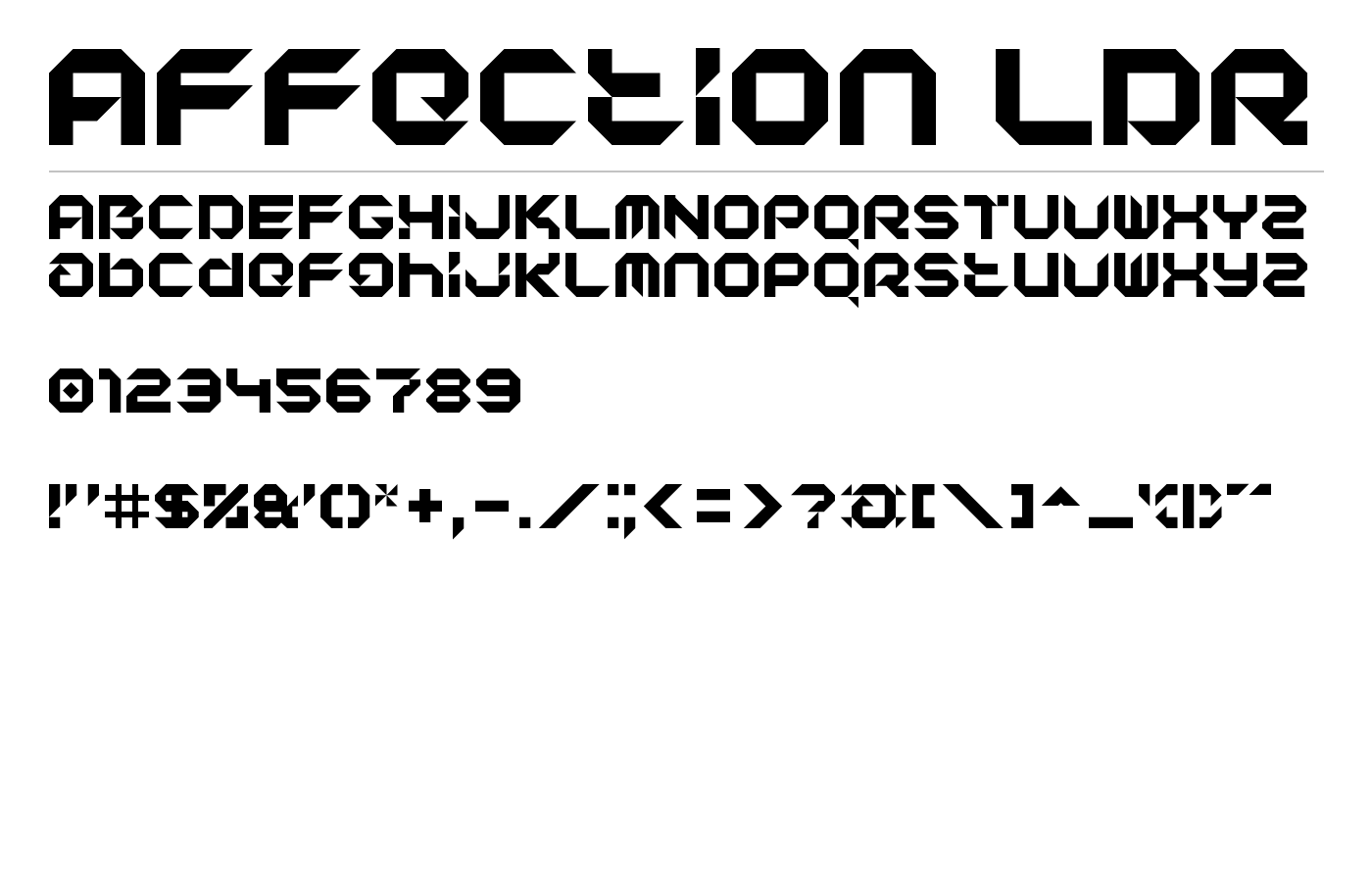
Affection LDR is a bold, geometric sans serif font with a futuristic and angular design, featuring consistent stroke weight and distinctive sharp corners. Its strong, modern appearance makes it ideal for tech-focused branding, posters, and headlines where a striking, innovative look is desired. This font works best in display settings where its unique letterforms can stand out and convey a sense of digital edge and creativity.
| Font family | Affection LDR Font |
| Designer | Michał “Neoqueto” Nowak |